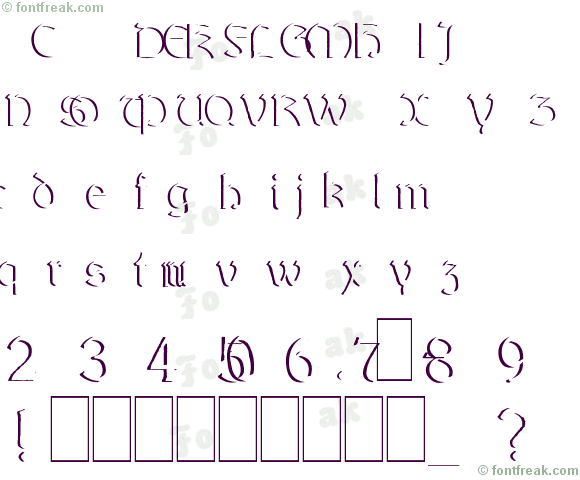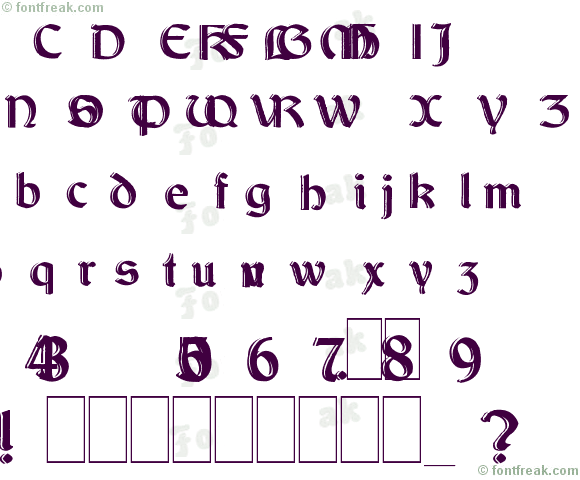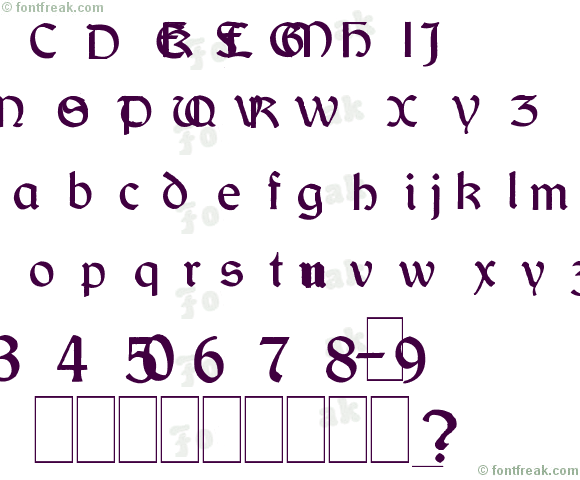
Dundalk
About Dundalk
Dundalk, designed by Paul Lloyd, is a captivating display font that falls within the decorative category. This unique typeface exudes a hand-drawn quality, giving it an artistic and personal touch that sets it apart from standard fonts. The letters feature a varied stroke weight, combining thicker and thinner lines that create a dynamic contrast. The slightly irregular spacing between characters enhances its handcrafted feel, making it ideal for projects that aim to convey authenticity and creativity.
The Dundalk font is versatile in its applications, making it a fantastic choice for a range of use cases. It shines in wedding invitations, where its charming style can add a personal touch to the special day. Additionally, it works wonderfully for movie posters, lending a unique flair that captures attention. Restaurant menus can also benefit from Dundalk's artistic appearance, making dishes more enticing and memorable. Furthermore, small business branding and promotional materials can leverage this font to establish a distinctive identity that resonates with customers.
What makes the Dundalk font stand out is its blend of creativity and functionality. Its hand-drawn aesthetic not only adds character but also invites the viewer to engage with the text on a deeper level. For anyone seeking to elevate their design work, the Dundalk font free download presents an excellent opportunity to incorporate a truly unique typeface into their toolkit.